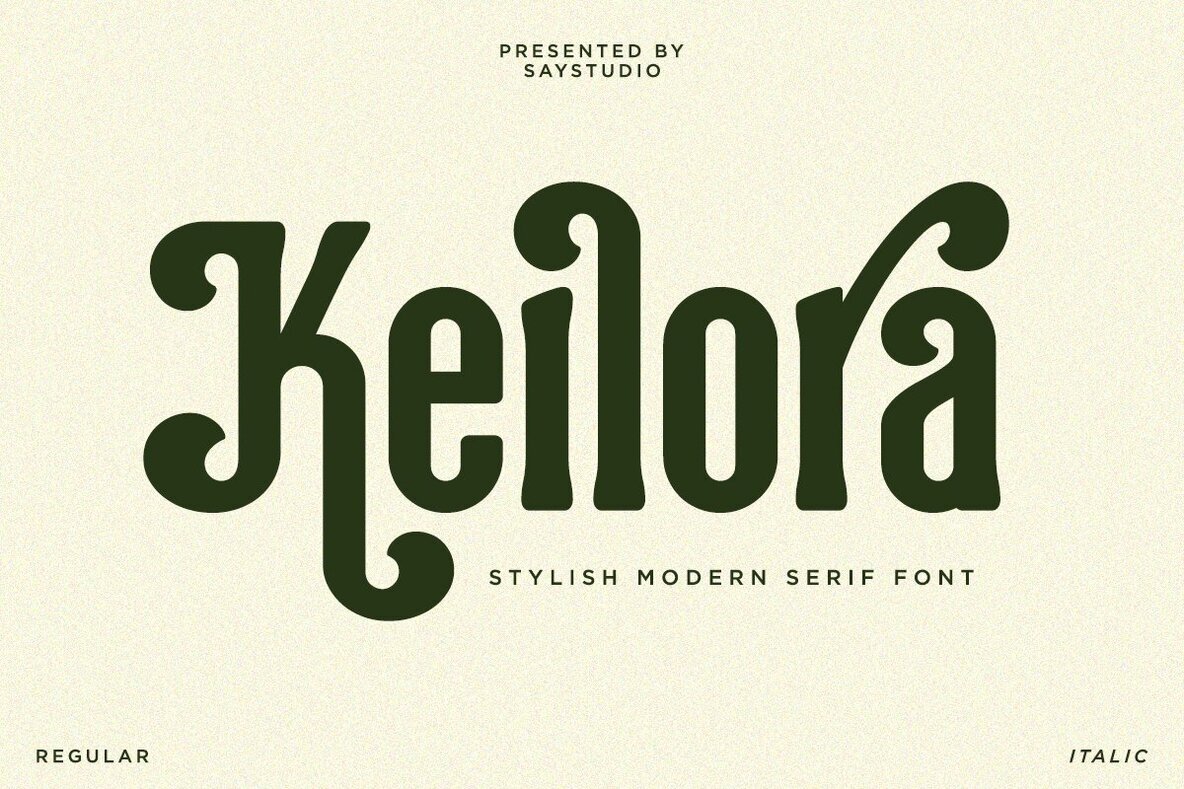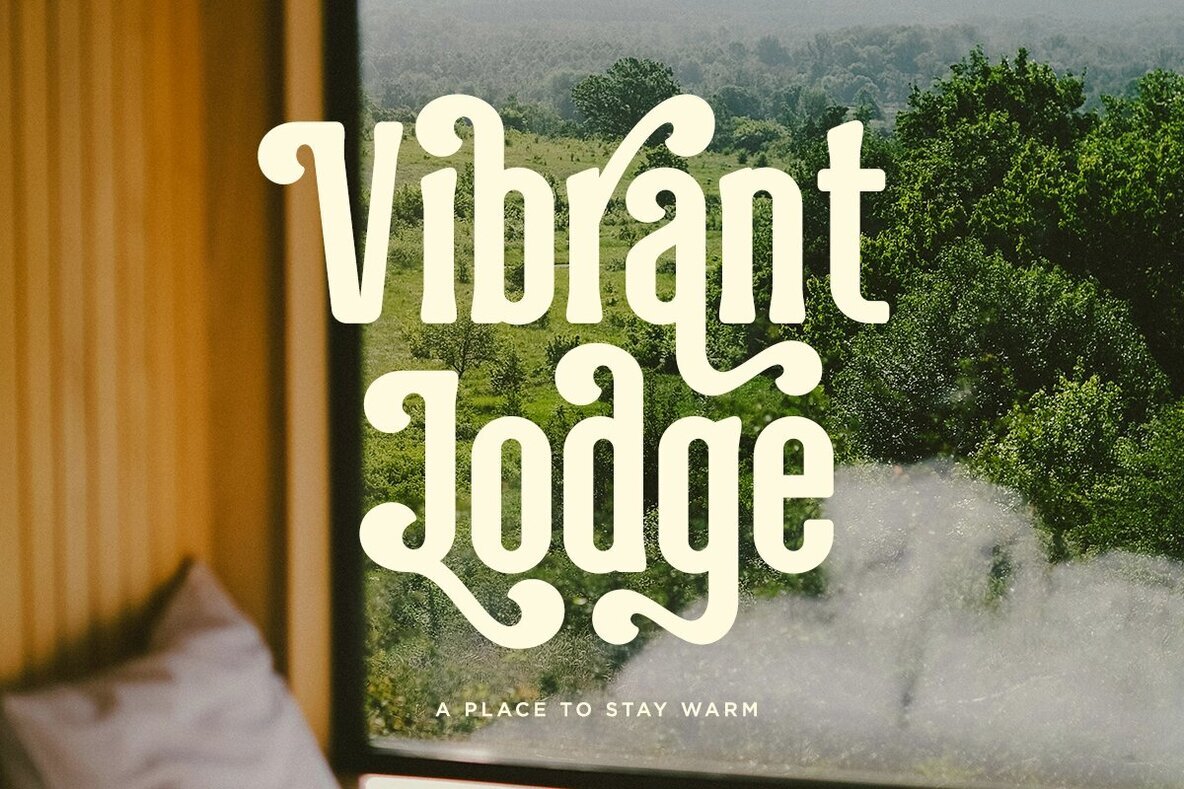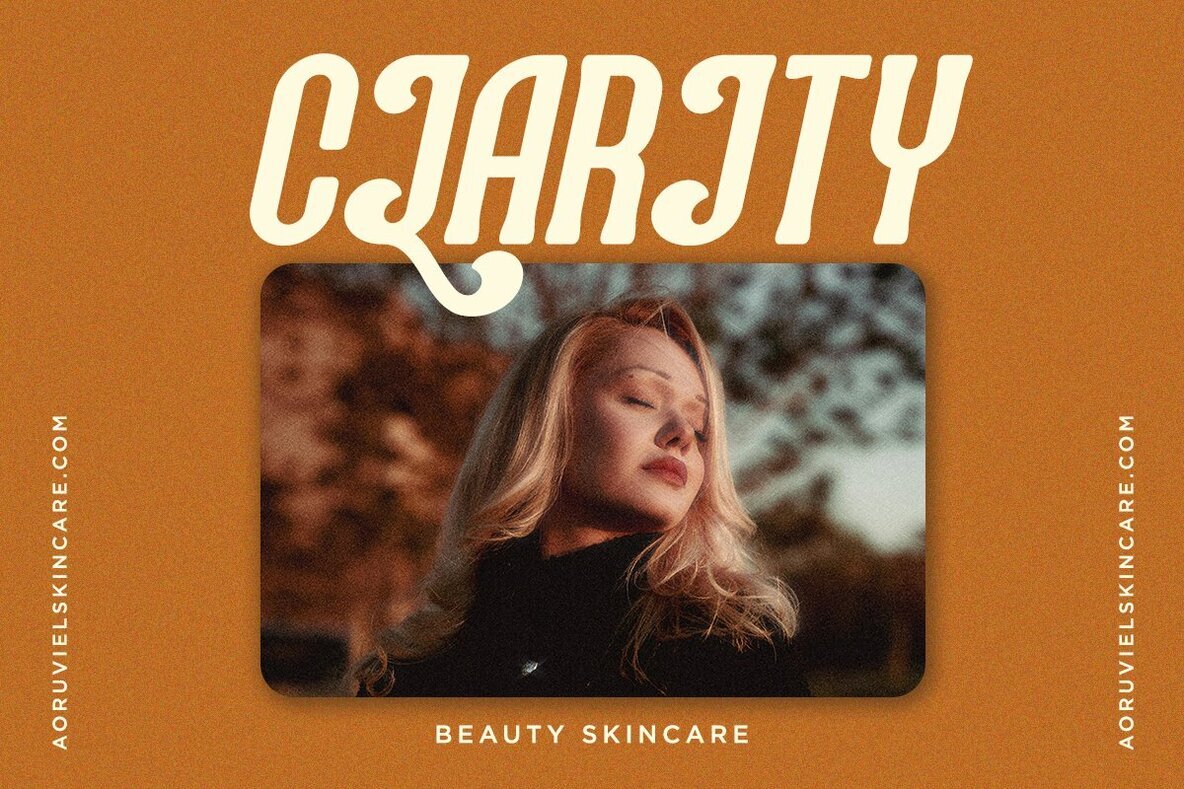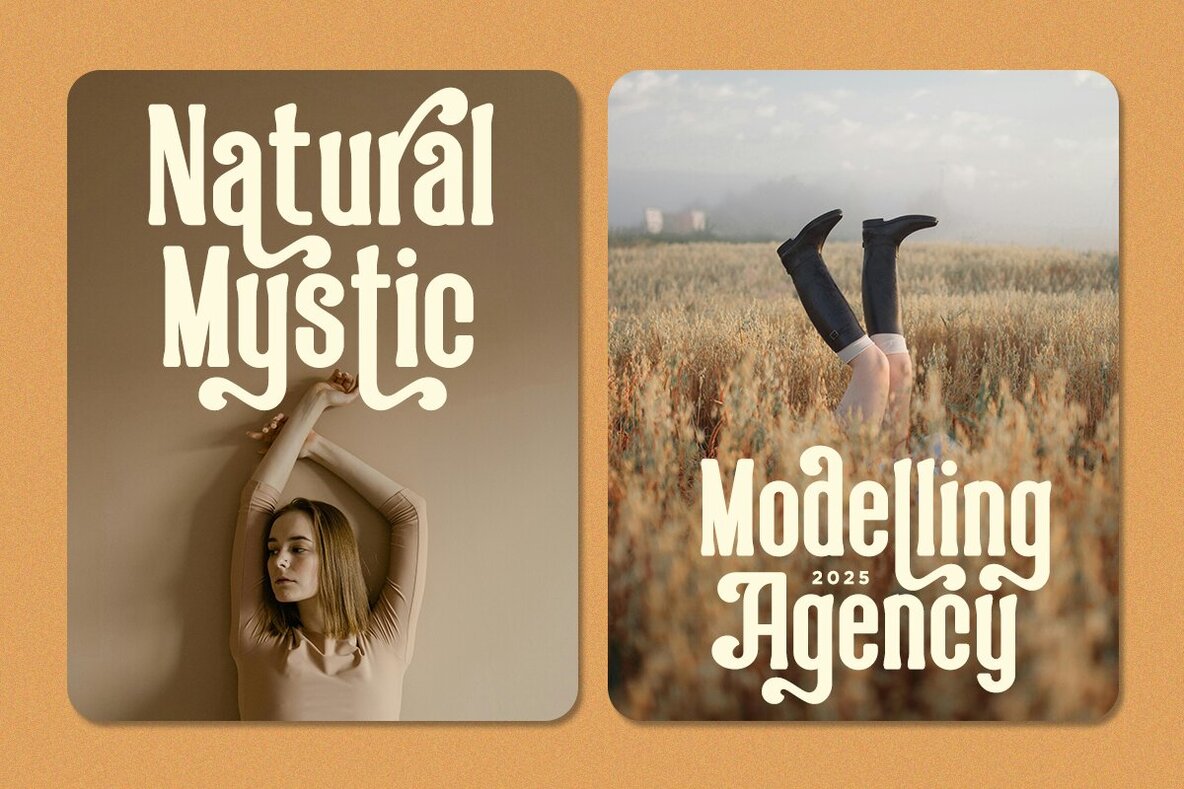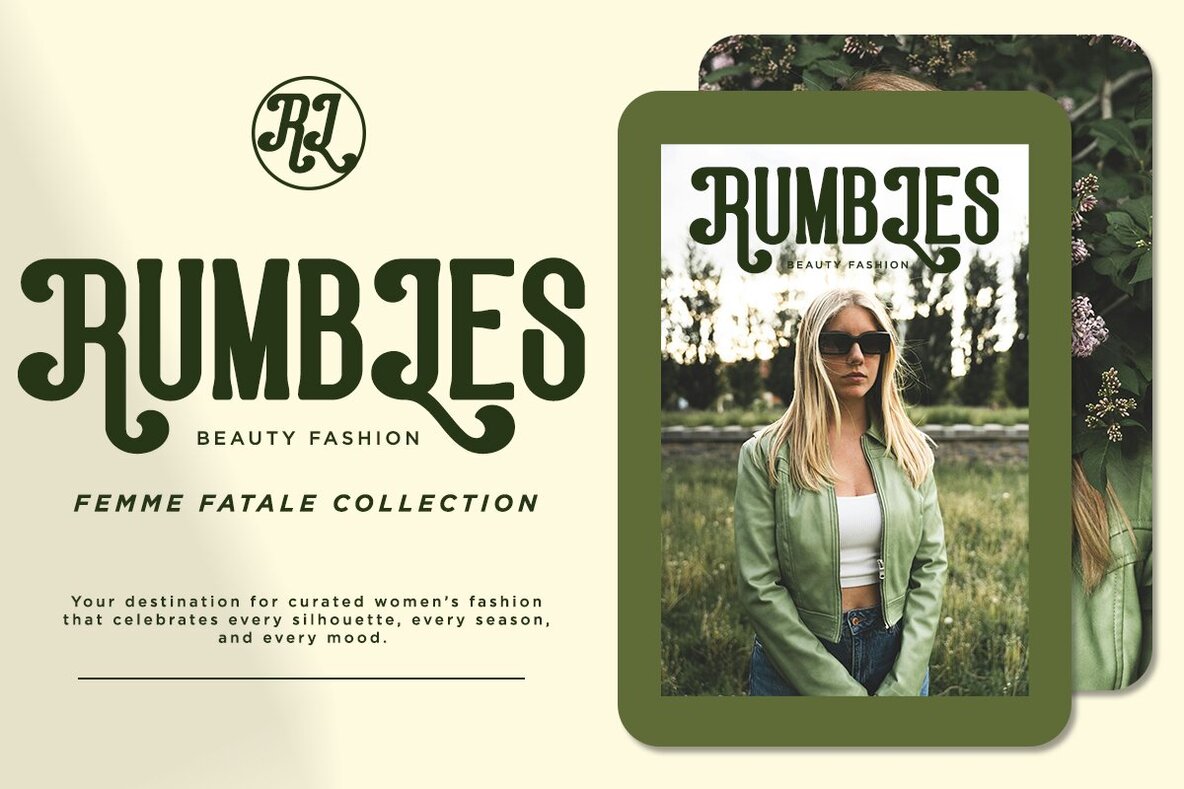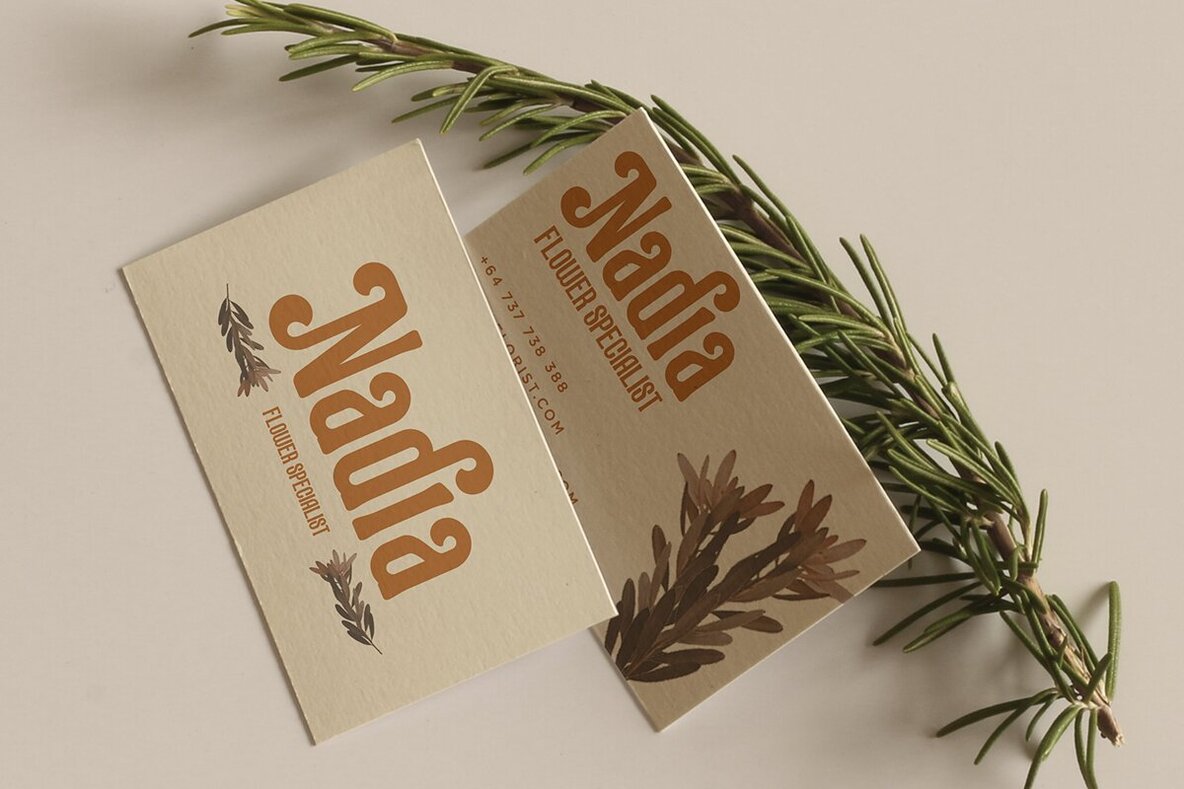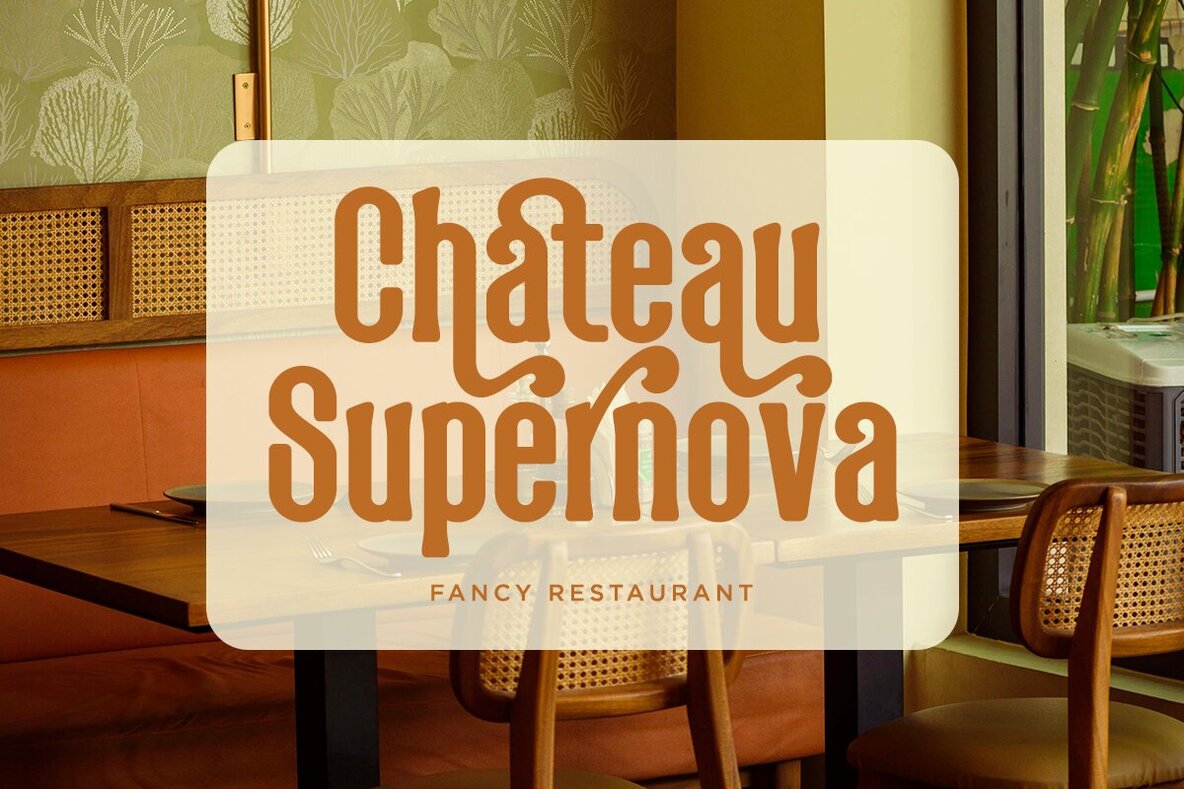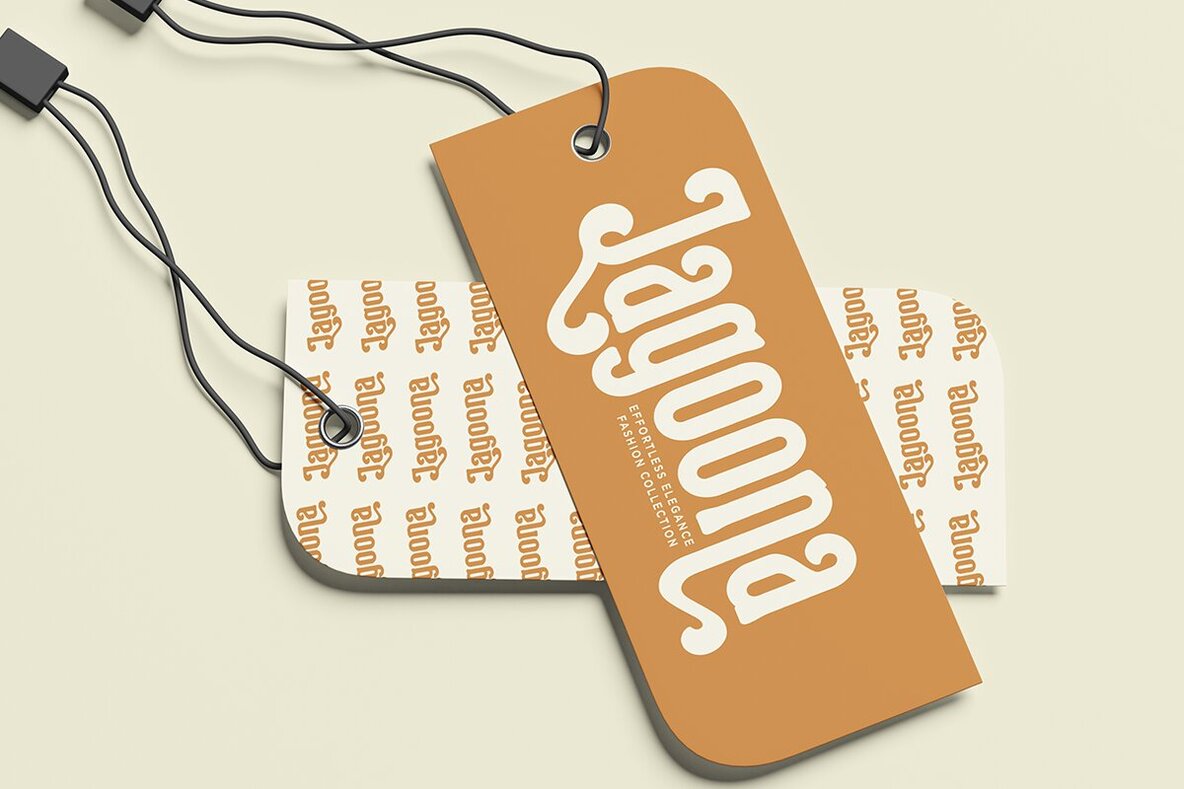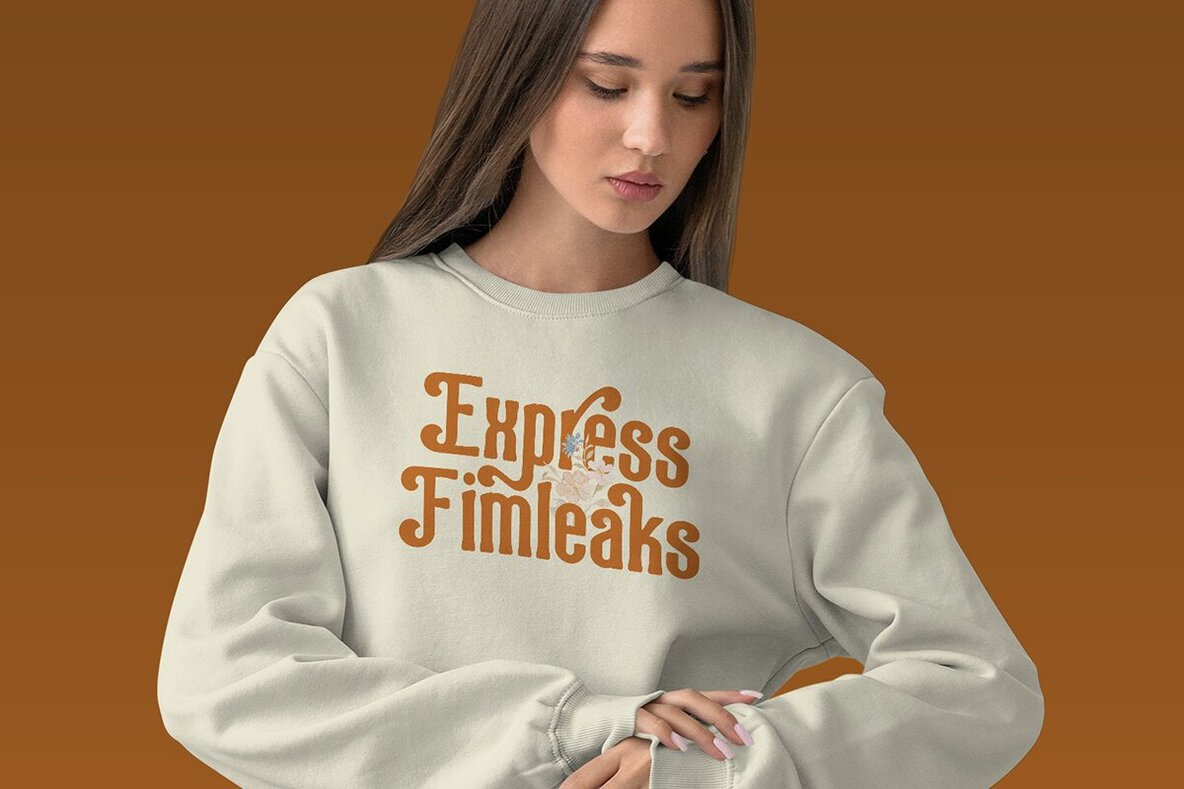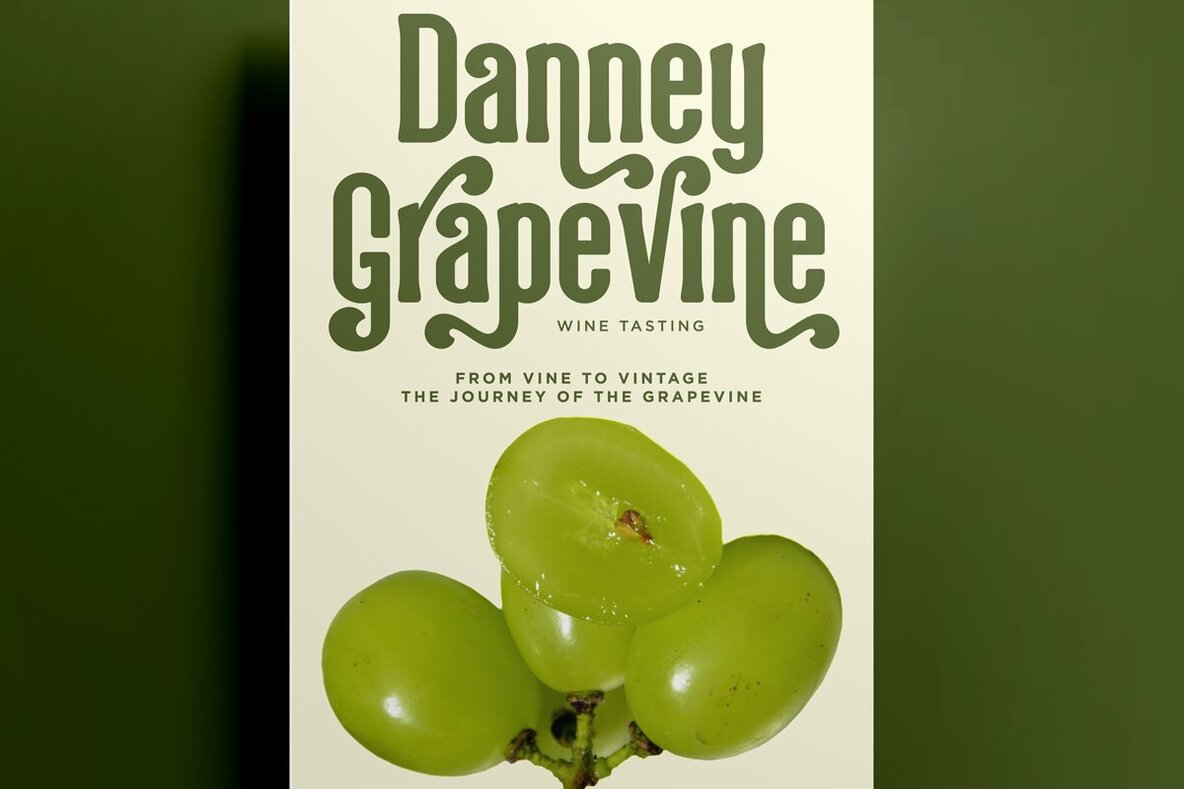
Keilora Font
Introducing Keilora, a modern condensed serif font that offers a blend of elegance and readability. With its tall serifs and rounded swash alternates, Keilora provides a high-contrast and stylish look, perfect for making a statement in both text and headlines. Its unique design ensures versatility, making it ideal for everything from editorial layouts to branding projects.Keilora Typeface: A Modern Condensed Serif
Features of Keilora